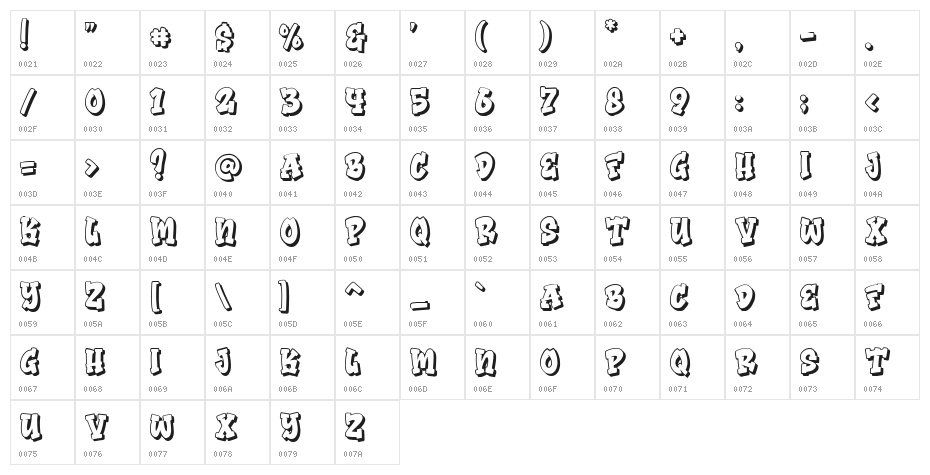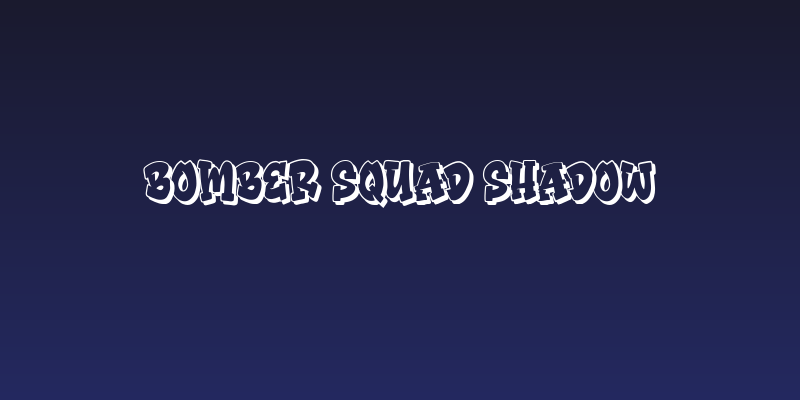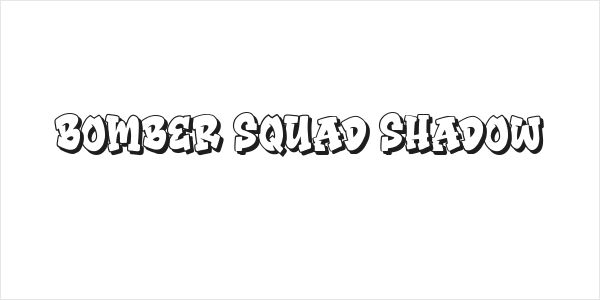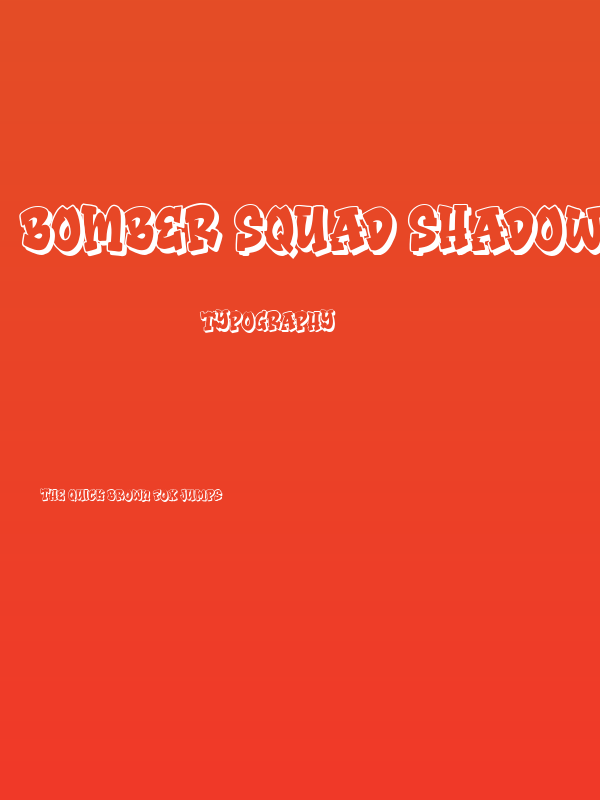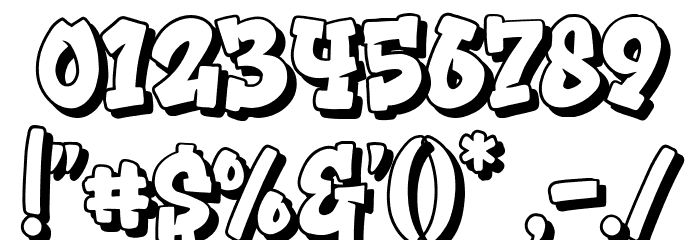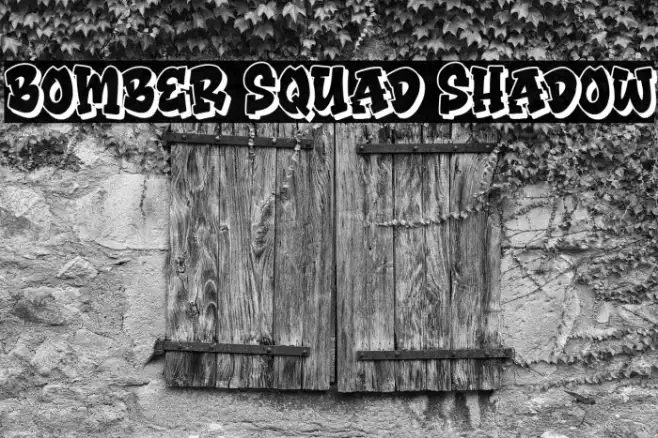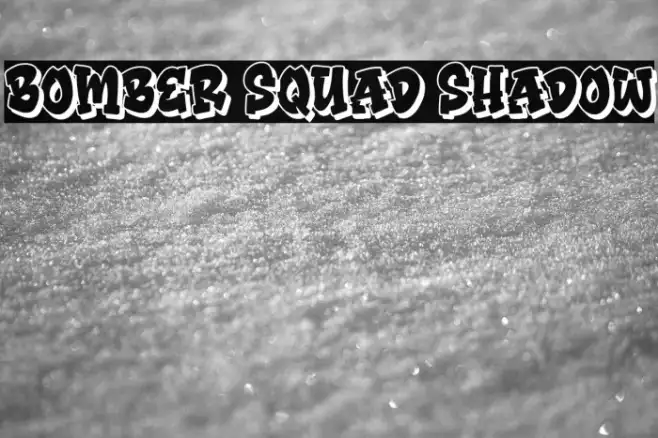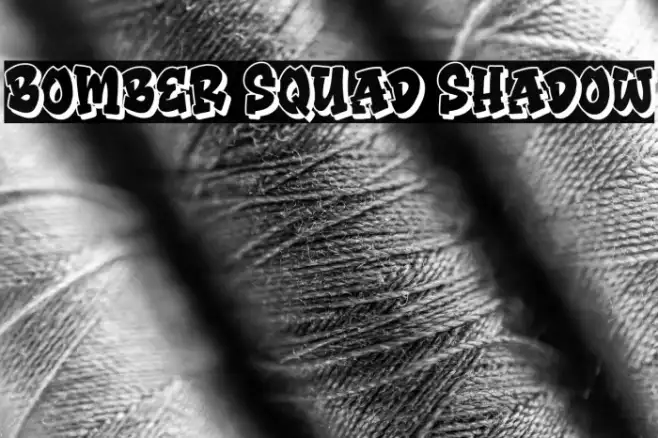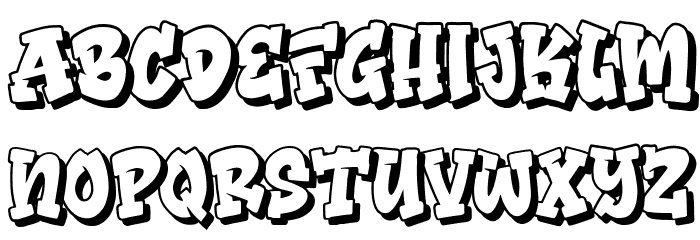
Bomber Squad Shadow Font
Bomber Squad Shadow Description
This font features a bold, playful style with a distinct shadow effect that gives it a three-dimensional appearance. The characters are heavily stylized with rounded edges and a chunky form, making them stand out prominently. The shadow adds depth, enhancing its visual impact. Each letter is crafted with a sense of fun and energy, making it ideal for eye-catching designs. The numbers and special characters maintain the same bold and playful aesthetic, ensuring consistency across all text elements.
| Overall Style | Playful, Energetic |
| Proposed Projects | Ideal for comic book titles, children's book covers, playful branding, and event posters. |